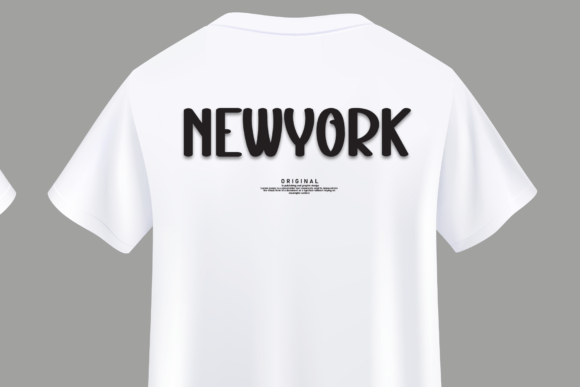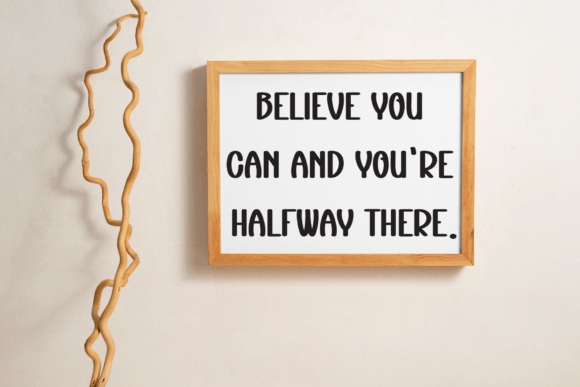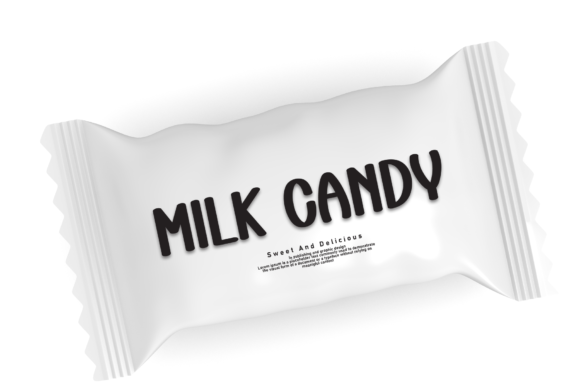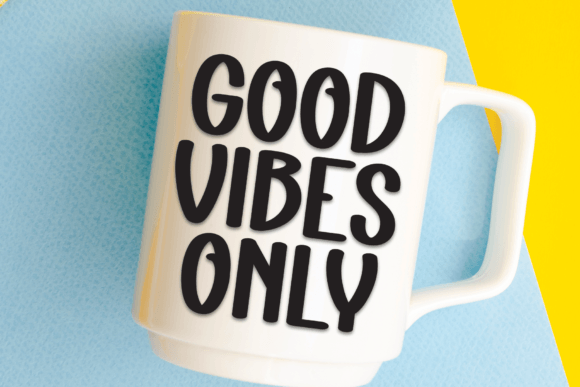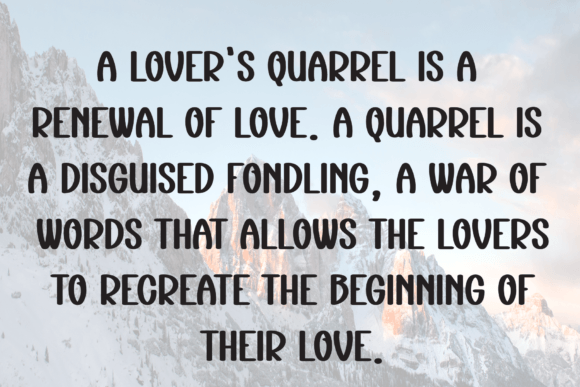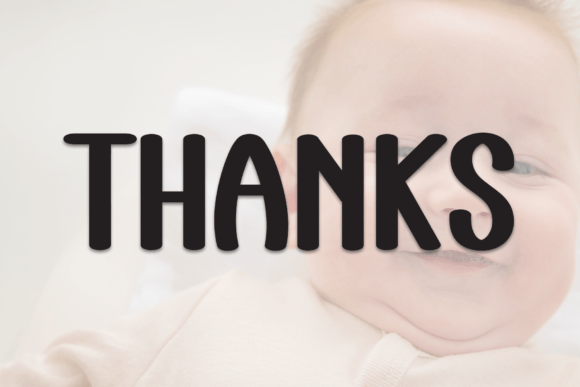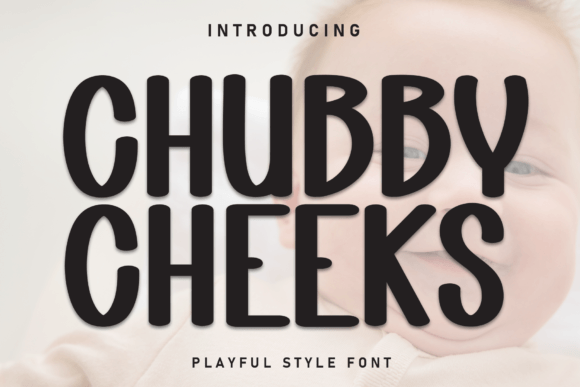
Introducing Chubby Cheeks Font: The Sweet and Friendly Handwritten Font for Your Creative Projects
Are you tired of using the same old fonts for your designs? Look no further! Chubby Cheeks Font is here to add a touch of sweetness and friendliness to your creative projects. This beautiful handwritten font is perfect for designers, crafters, and anyone looking to add a personal touch to their work.
What Makes Chubby Cheeks Font So Special?
Chubby Cheeks Font is a unique and natural handwritten font that stands out from the crowd. Its sweet and friendly style makes it incredibly fitting for a wide range of designs, from kids’ projects and party decor to branding and advertising materials. The font’s playful and approachable vibe is sure to capture the hearts of your audience and leave a lasting impression.
Endless Design Possibilities with Chubby Cheeks Font
The best part about Chubby Cheeks Font is its versatility. The only limit is your imagination! You can use it to create:
- Kids’ party invitations and decorations
- Cute and playful branding materials, such as logos and packaging
- Handmade craft projects, like cards and gift tags
- And so much more!
Why Choose Chubby Cheeks Font for Your Designs?
Here are just a few reasons why Chubby Cheeks Font is a great choice for your creative projects:
- Unique and eye-catching: Chubby Cheeks Font is a one-of-a-kind font that will make your designs stand out from the crowd.
- Easy to read: The font is clear and easy to read, making it perfect for body text and headings.
- Highly versatile: Chubby Cheeks Font can be used for a wide range of designs, from digital projects to print materials.
- Perfect for kids’ projects: The font’s playful and whimsical style makes it ideal for kids’ party decorations, invitations, and activities.
Tips for Using Chubby Cheeks Font in Your Designs
Here are a few tips to help you get the most out of Chubby Cheeks Font:
- Pair it with other fonts: Combine Chubby Cheeks Font with other fonts to create a unique and interesting contrast.
- Experiment with colors: Try out different colors and color combinations to match your brand or design style.
- Use it for headings and titles: Chubby Cheeks Font is perfect for headings and titles, adding a touch of personality to your designs.
Chubby Cheeks Font is a sweet and friendly handwritten font that’s perfect for designers, crafters, and anyone looking to add a personal touch to their creative projects. With its unique and natural style, endless design possibilities, and versatility, this font is sure to become a favorite in your design toolkit. So why wait? Download Chubby Cheeks Font today and start creating your own sweet and playful designs!
Whether you’re a seasoned designer or a crafty DIY enthusiast, Chubby Cheeks Font is the perfect addition to your creative arsenal. So go ahead, get creative, and show the world what you can do with this amazing font!